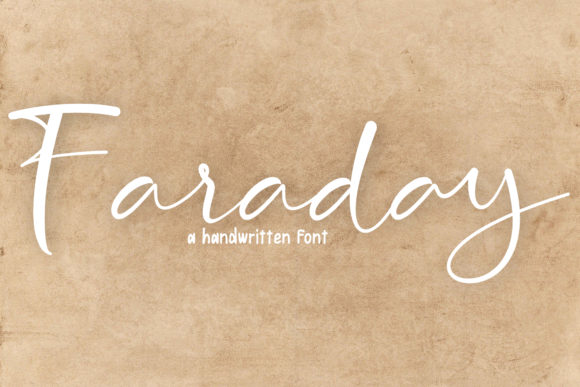
Immerse yourself in the artistry of Faraday Font, a script font family that embodies the essence of handwritten elegance. This charming font, crafted by the skilled hands of Coretanletter, exudes a casual and relaxed vibe, reminiscent of heartfelt letters penned with care. With its clean, thin, and smooth lines, Faraday Font adds a touch of sophistication to any design, inviting your words to dance across the page with grace and fluidity.
Let Faraday Font transport you to a world of creativity, where your designs come alive with a personal touch. Perfect for handwritten quotes, heartfelt messages, and elegant branding, this font family captures the essence of individuality, making it an ideal choice for expressing your unique style. Whether you're a graphic designer seeking to elevate your projects or a passionate crafter yearning for a font that reflects your creativity, Faraday Font is the perfect companion for your artistic journey.
With Faraday Font, the possibilities are endless. Create stunning wedding invitations that evoke a sense of timeless romance, design eye-catching social media graphics that captivate your audience, or craft personalized cards and stationery that leave a lasting impression. The versatility of Faraday Font extends to a wide range of design projects, allowing you to effortlessly add a touch of charm and sophistication to any endeavor.
Embrace the beauty of handwritten artistry with Faraday Font. Its delicate strokes and flowing curves invite you to connect with your audience on a deeper level, evoking emotions and creating a lasting impact. As you explore the endless possibilities of this remarkable font family, discover the joy of expressing yourself in ways you never thought possible.